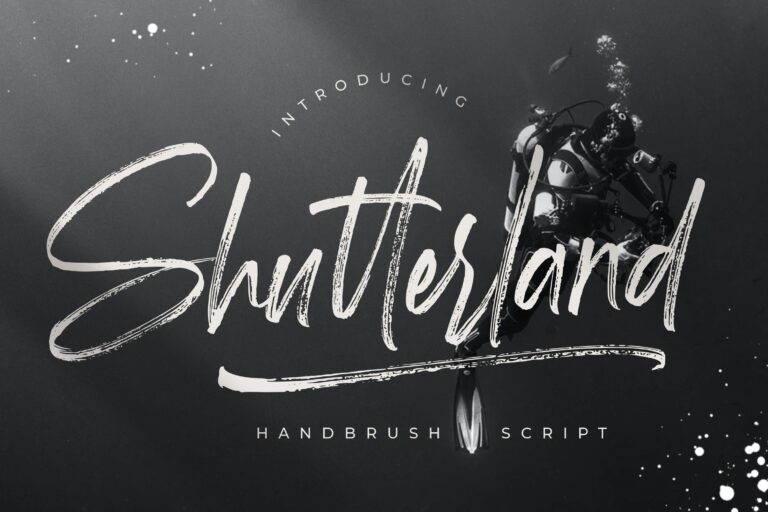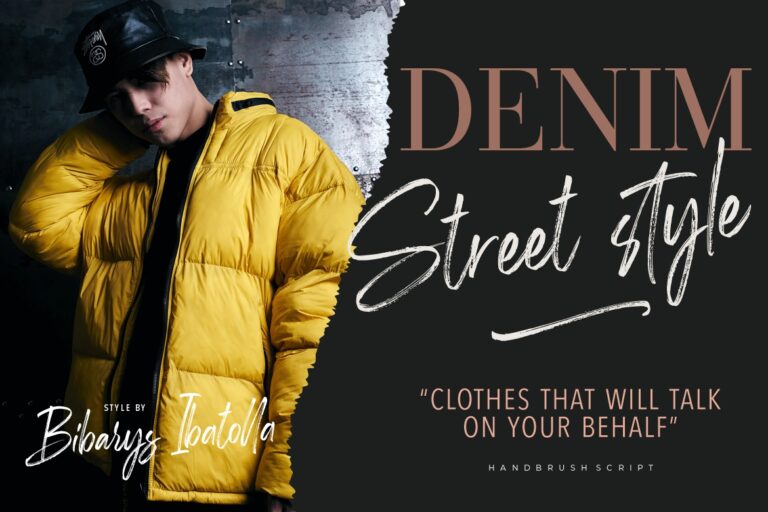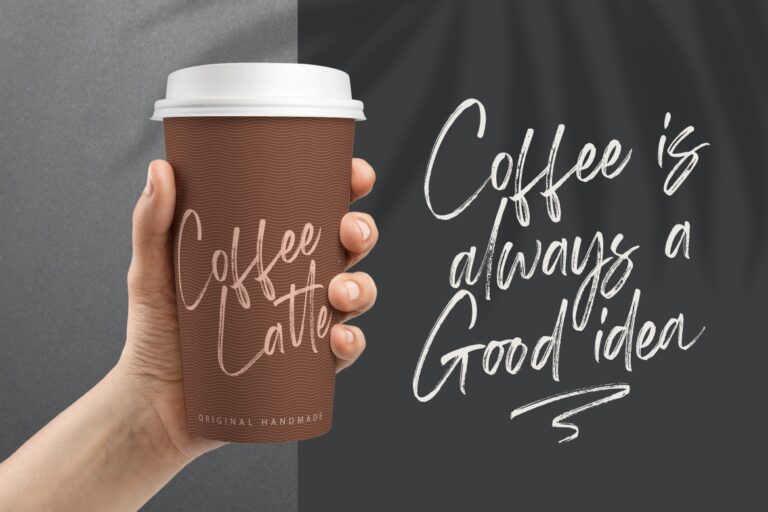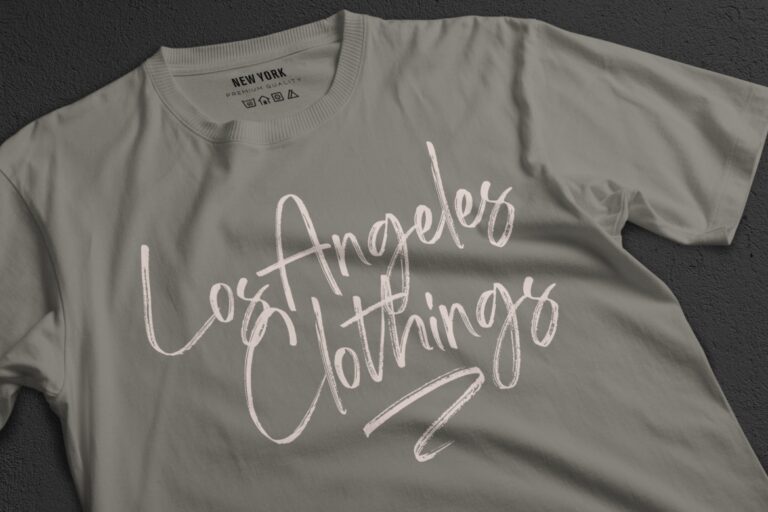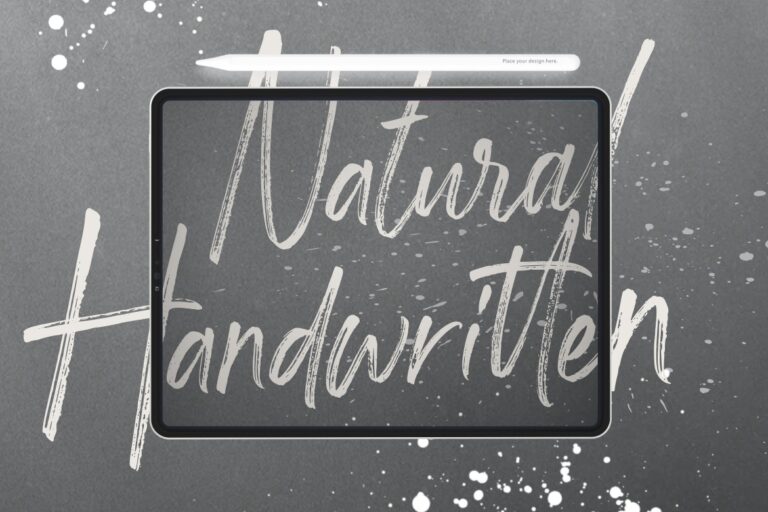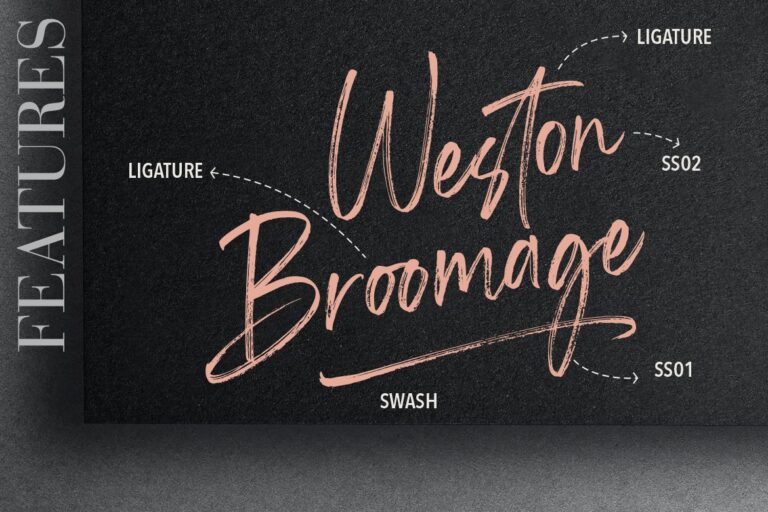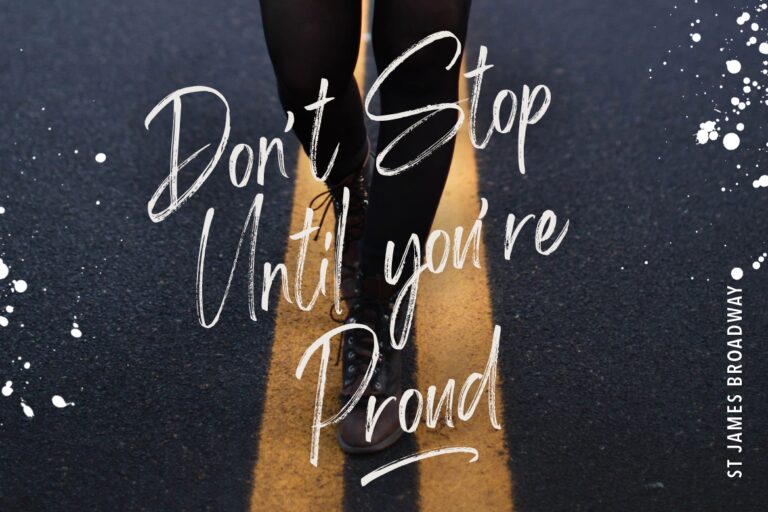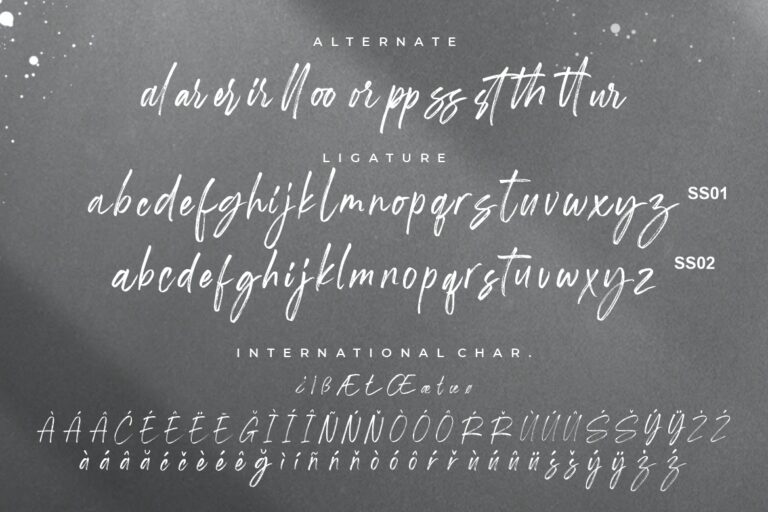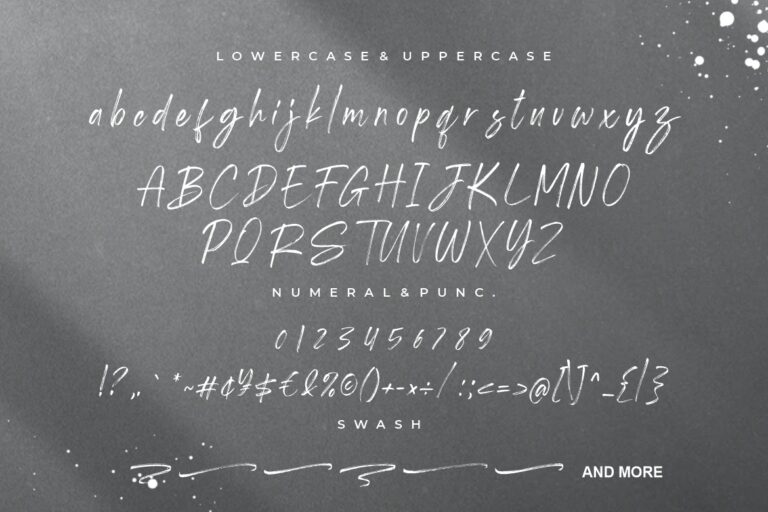
Shutterland Handbrush Script
Shutterland is a natural hand brushed font with stylish scratch.
Shutterland is perfect for branding projects, logo, wedding designs, social media posts, advertisements, product packaging, product designs, label, photography, watermark, invitation, stationery and any projects that need handwriting taste.
- Ligature, Swashes & Alternate